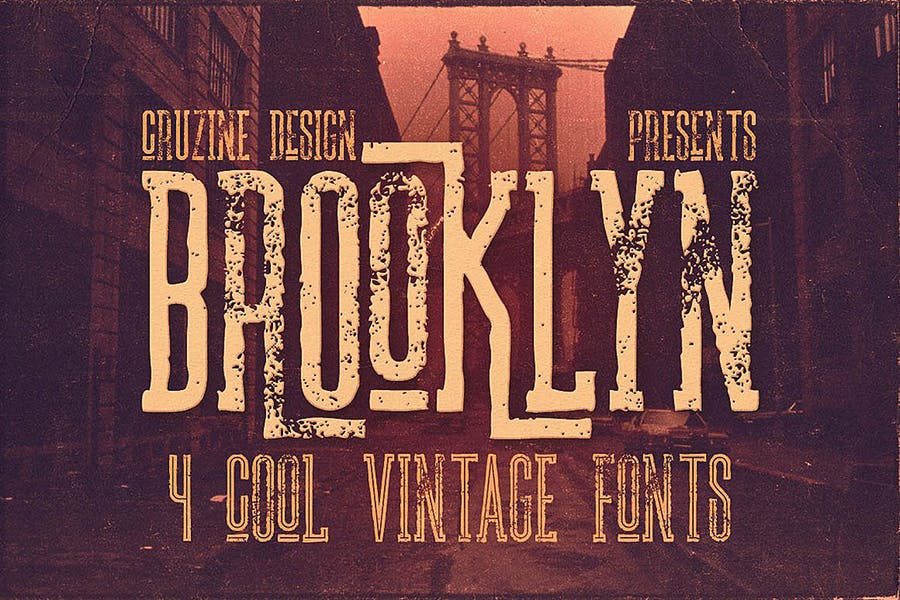
Brooklyn Typeface Font
Brooklyn Typeface Font is perfect for urban lifestyle branding, modern city restaurant signage, trendy coffee shop marketing, creative agency logos, contemporary boutique advertising, metropolitan event graphics, artistic neighborhood communications, and dynamic urban culture campaigns.
What makes Brooklyn Typeface Font exciting is its urban sophistication that embodies the creative energy and metropolitan authenticity of modern city culture with borough character and artistic flair. The font features contemporary letterforms with urban proportions and metropolitan character that evoke loft apartments, street art, and the vibrant creativity of diverse urban neighborhoods and artistic communities. Its distinctive urban styling and creative appeal communicate authenticity, creativity, and metropolitan culture, making every message feel crafted in the city and touched by the dynamic energy of urban artistic expression and neighborhood authenticity.
The Brooklyn Typeface Font family includes regular weight with uppercase and lowercase letters, numerals, punctuation marks, and special characters. Premium versions often feature urban alternates and metropolitan elements that enhance the contemporary, artistic aesthetic perfect for city and creative applications.
This dynamic urban typeface brings instant authenticity and metropolitan credibility to any city-focused project. Brooklyn Typeface Font Free Download offers exceptional value for urban businesses and creative organizations seeking to communicate metropolitan culture, artistic authenticity, and urban sophistication to city dwellers and creative audiences.
The metropolitan character of Brooklyn Typeface Font makes it particularly valuable for urban restaurants, creative agencies, and neighborhood businesses. Its excellent readability ensures urban messaging and creative communications remain clear while maintaining the distinctive metropolitan aesthetic that appeals to customers seeking authentic city experiences and urban artistic culture.
Urban creative marketers appreciate how Brooklyn Typeface Font effortlessly conveys metropolitan authenticity and artistic creativity. The font's contemporary proportions and urban details create compelling brand materials that establish connections with audiences who value city culture, artistic expression, and the dynamic creativity of urban neighborhood life and metropolitan authenticity.
The versatile urban appeal of this typeface extends to creative education, urban development, and artistic venues where metropolitan authenticity enhances creative credibility and city appeal. Brooklyn Typeface Font Free Download provides creative professionals with an essential tool for developing memorable, urban-driven designs that resonate with audiences who embrace metropolitan culture, creative authenticity, and the dynamic energy of urban artistic neighborhoods in their city lifestyle and creative experiences.